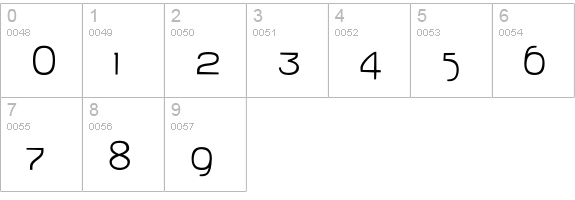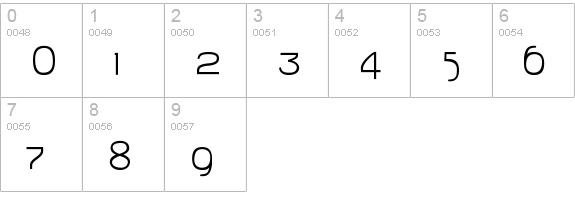
BabyMineThin Font Details
Introducing BabyMineThin, a charming and delicate font that will add a touch of sweetness to any project. With its gentle curves and slender strokes, this typeface is perfect for capturing the innocence and purity of a newborn's world. BabyMineThin is freely available to download at FontsMarket.com, making it accessible to all who appreciate its graceful simplicity. Whether you're designing a birth announcement, creating adorable nursery decor, or crafting a heartfelt baby shower invitation, this font will effortlessly convey the tender emotions associated with welcoming a little one into the world. The elegant and refined nature of BabyMineThin makes it versatile and adaptable to various design styles. Its slender letterforms create a sense of lightness and delicacy, while the subtle variations in stroke width add a touch of sophistication. This font is sure to bring a sense of warmth and charm to any project it graces. The smooth and flowing curves of BabyMineThin create a sense of harmony and tranquility, reflecting the serenity and innocence of infancy. Its simplicity ensures legibility, making it ideal for use in both large headlines and small body text. Whether you're a professional designer or an aspiring creative, BabyMineThin is a font that will leave a lasting impression. Its timeless beauty and freely accessible availability at FontsMarket.com make it a must-have in your font collection. Download BabyMineThin today and let its gentle elegance inspire your next project.